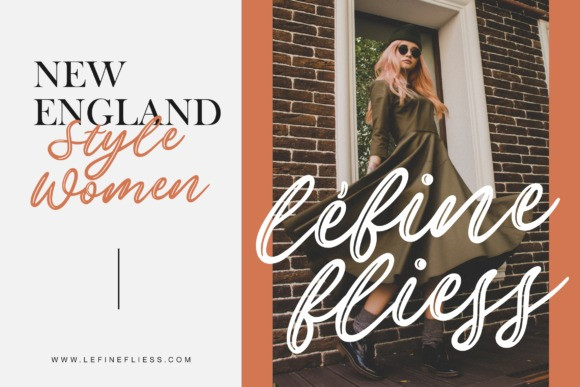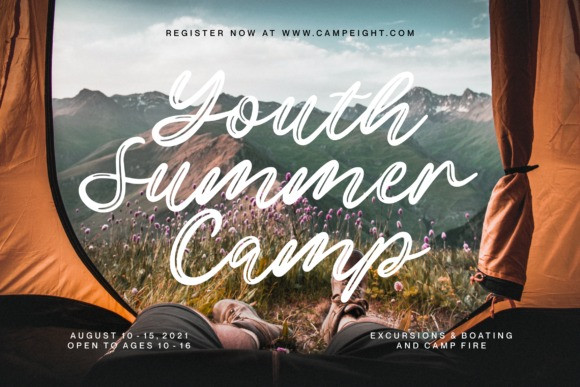
Vemina Handwritten Script Font
Vemina Is Handwritten Monoline Scipt font which is make with natural movement and elegant for signature style.
Vemina Handwritten is suitable for any branding projects, logo, wedding designs, social media posts, product packaging, product designs, advertisements, label, photography, watermark, invitation, stationery and any projects that need handwriting taste looklike.